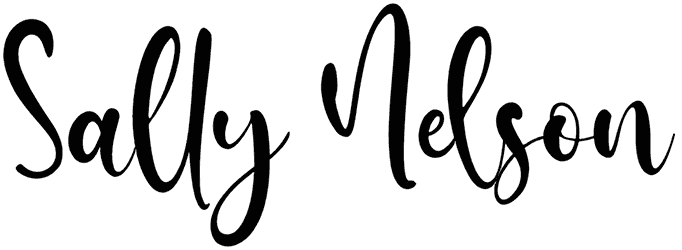
Sally Nelson Font
Wind lines and let the sense of love attract your viewers with this adorable handwritten font. Sally Nelson consists of modern and artistic brush-lettering characters that can reflect an appealing mood. With an almost full cover, this cursive font is one of the best choices to show off your creative projects, namely business cards, logotypes, magazines, and many more.